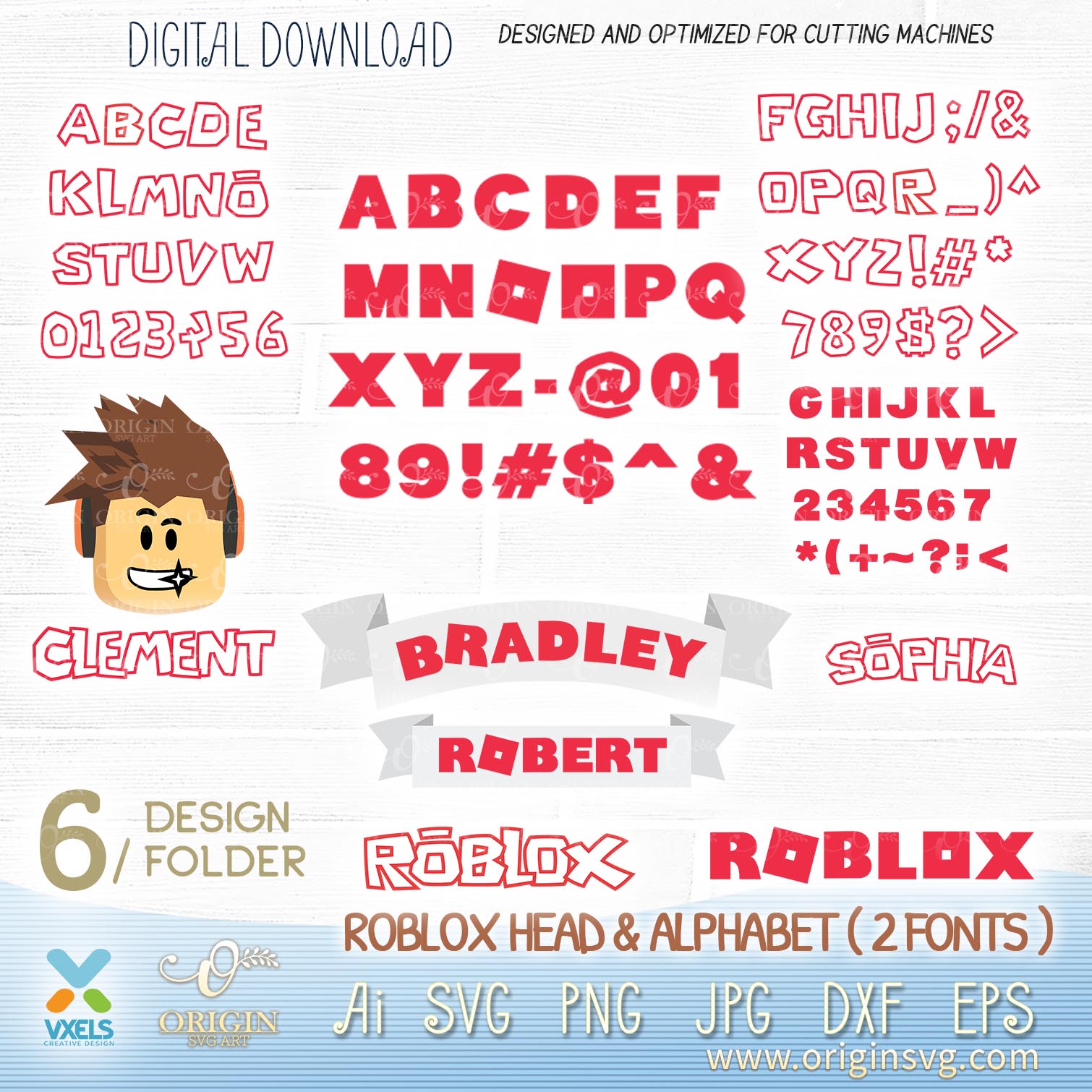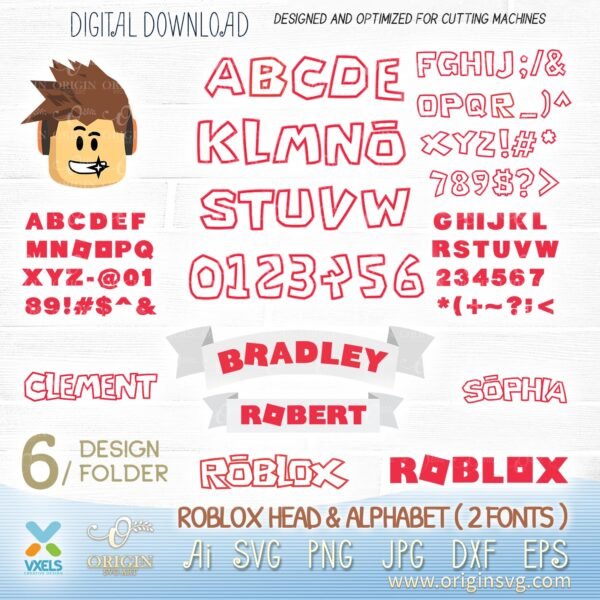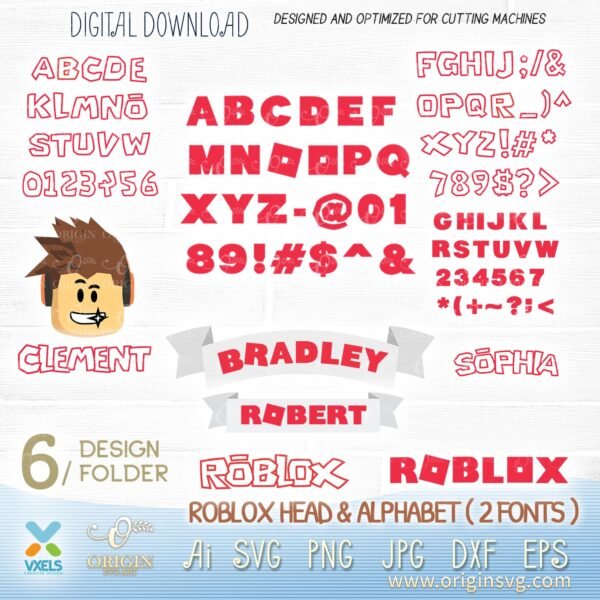
Layered Roblox SVG : Alphabet Fonts Vector Graphic with Name Tag for Birthday Custom Image. Includes Roblox Logotype and two banner. Great for Cricut file, vinyl decal file for silhouette cameo. This roblox alphabet svg theme cut file are compatible for Cricut cut file, Illustrator, DXF, EPS PNG and Jpeg Image. All image cutting clip art is ready to download for kids name tag, card design, t-shirt, mug, pillow, art and craft, or other artworks. Printable Wall Decor, Printable Sign, Wall Sign, Commercial Use, File Download, SVG PNG.